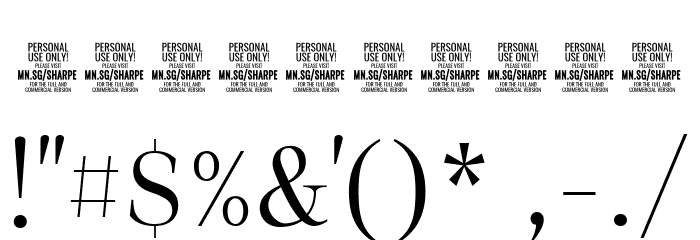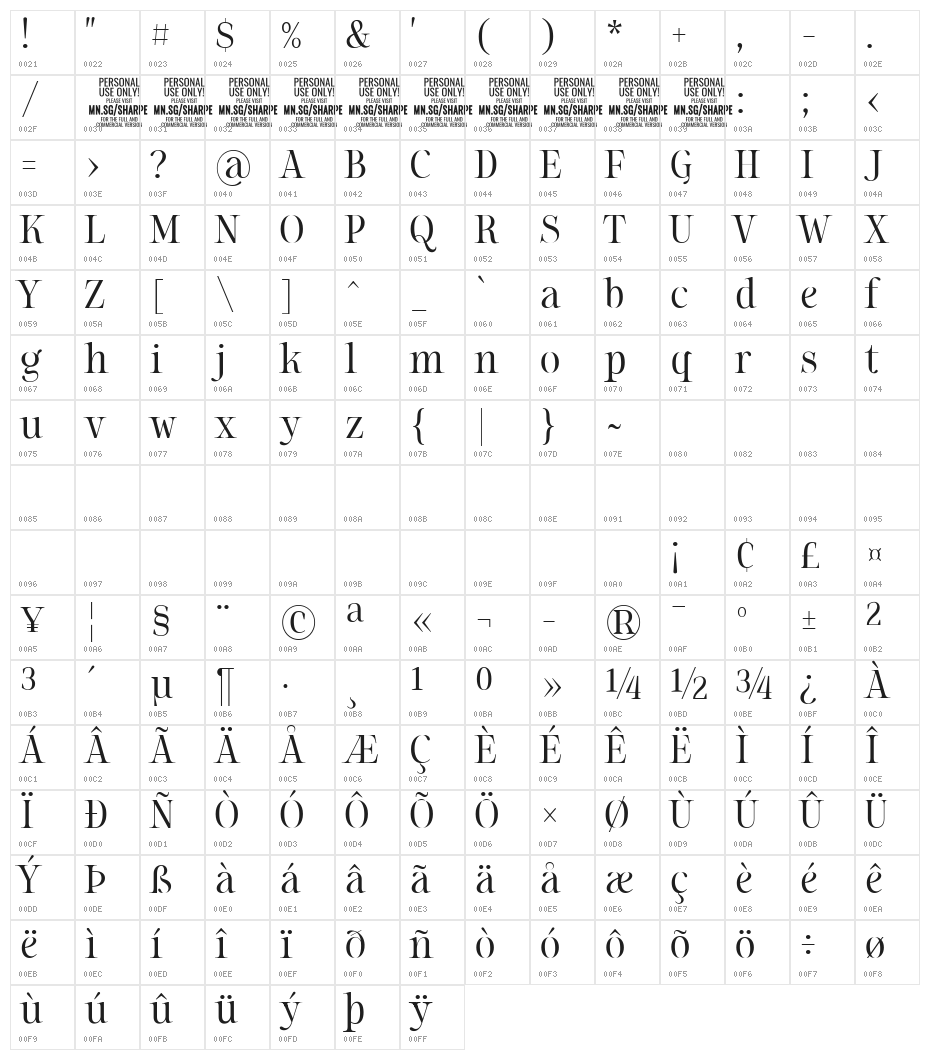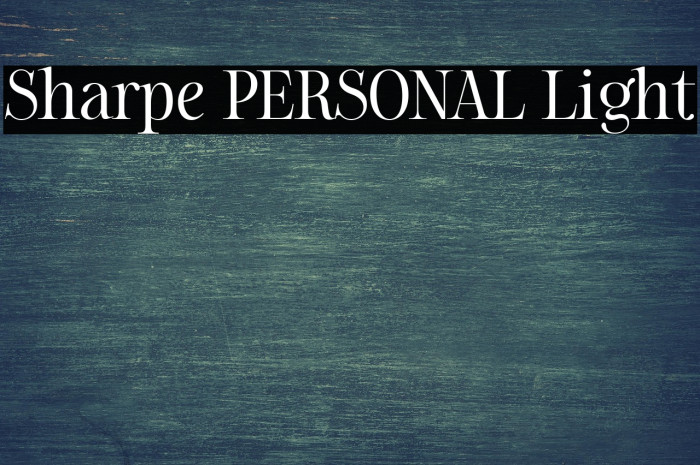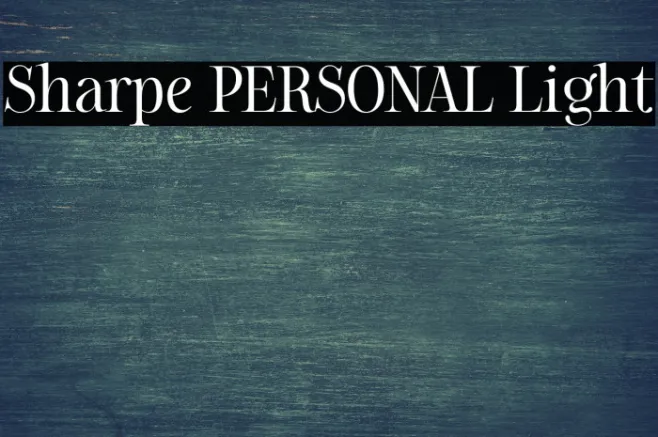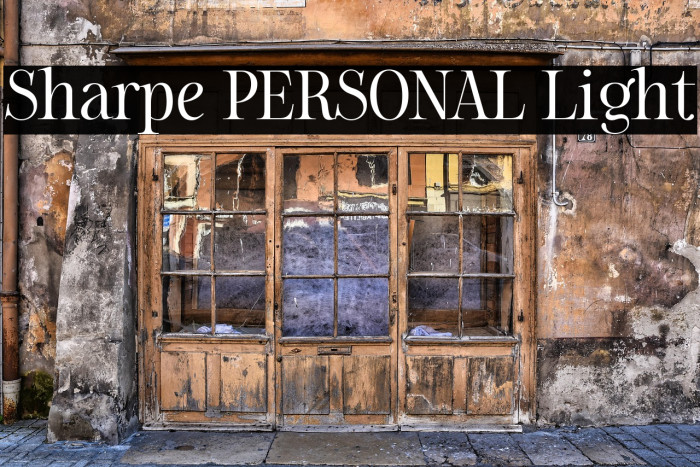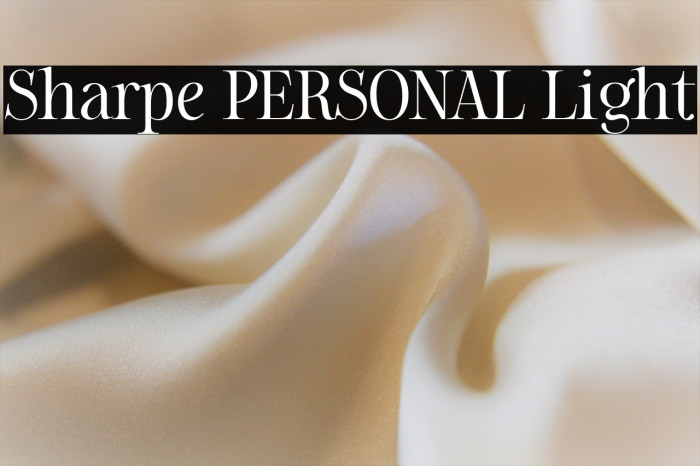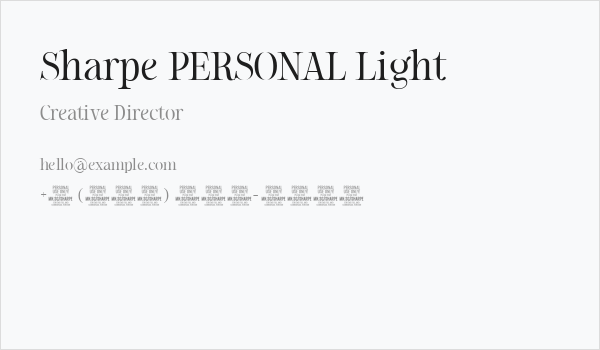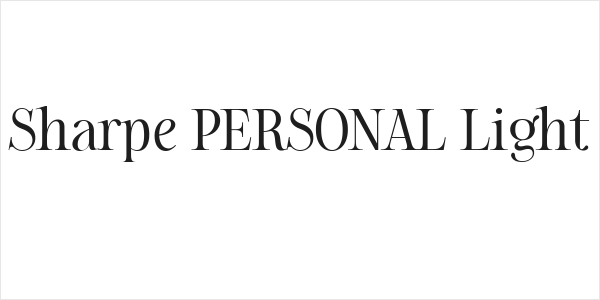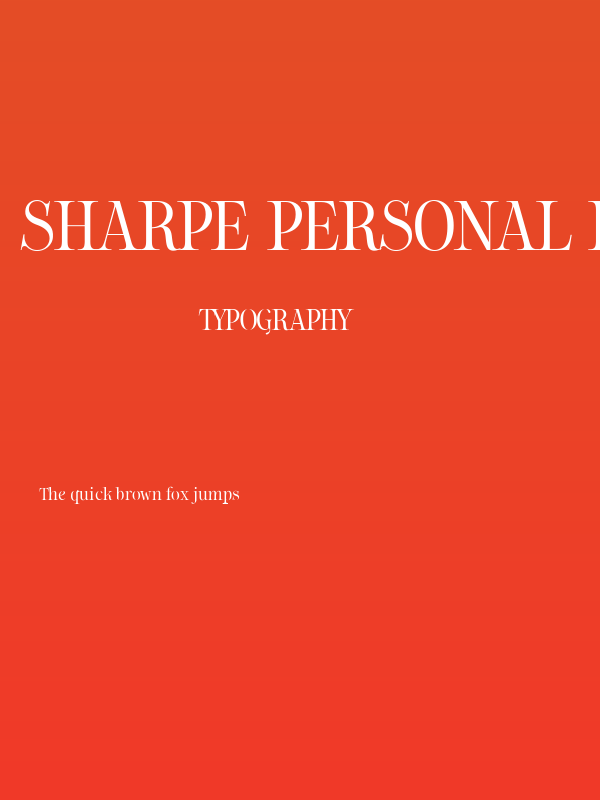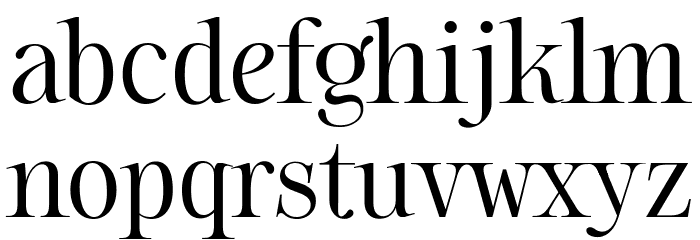
Sharpe PERSONAL Light Font
Sharpe PERSONAL Light Description
This font features a sophisticated and elegant serif style, characterized by its thin, elongated serifs and high contrast between thick and thin strokes. The uppercase letters exhibit a classic and formal appearance, while the lowercase letters maintain a consistent flow with slightly rounded edges. The numerals are designed with a traditional touch, complementing the overall aesthetic. Special characters are crafted with precision, adding to the font's versatility. This font is ideal for projects that require a touch of elegance and refinement.
| Use Case | Headlines, Logos, Editorial design |
| Proposed Projects | Ideal for wedding invitations, luxury branding, editorial design, and high-end product packaging. |